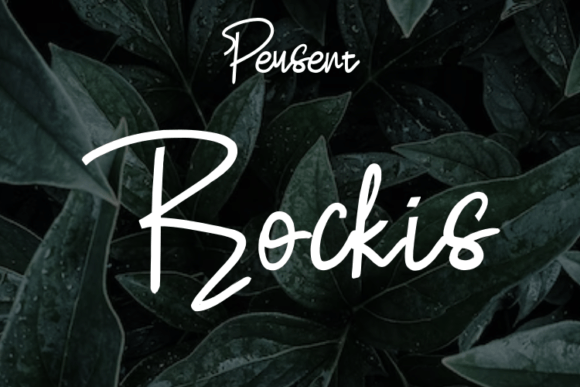
Unleash the elegance and sophistication of your designs with Rockis Font, a captivating script typeface that exudes a timeless charm. Dive into a world of creativity where simplicity meets modernity, making this font the perfect choice for expressing your unique style.
With its graceful curves and delicate strokes, Rockis Font adds a touch of finesse to any project. Whether you're designing a sophisticated logo, crafting book or movie titles that demand attention, or creating fashion brands that radiate luxury, Rockis Font is your ultimate creative companion.
Step into the spotlight and let your designs shine with Rockis Font. Its versatility knows no bounds, making it the perfect choice for magazines, clothing, fonts, and quotes that seek to captivate and inspire. Join the ranks of trendsetters and visionaries who have embraced Rockis Font to elevate their creative endeavors.
But it's not just about aesthetics; Rockis Font is also incredibly easy to use. Its intuitive design makes it accessible to both seasoned designers and those just starting their creative journey. Unleash the power of Rockis Font and watch your designs transform before your eyes.
Take the first step towards creating designs that leave a lasting impression. Embrace Rockis Font today and elevate your projects to new heights of elegance and sophistication. Let your creativity soar and witness the magic that unfolds.